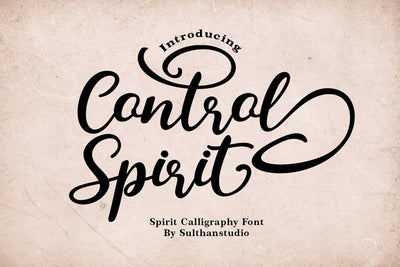
Control spirit
Introducing
Control spirit - Bold typeface handwritten font
It is suitable for all types of work that you do with various purposes such as logos, wedding invitations, titles, t-shirts, letterheads , signboards, labels, news, posters, badges, etc.